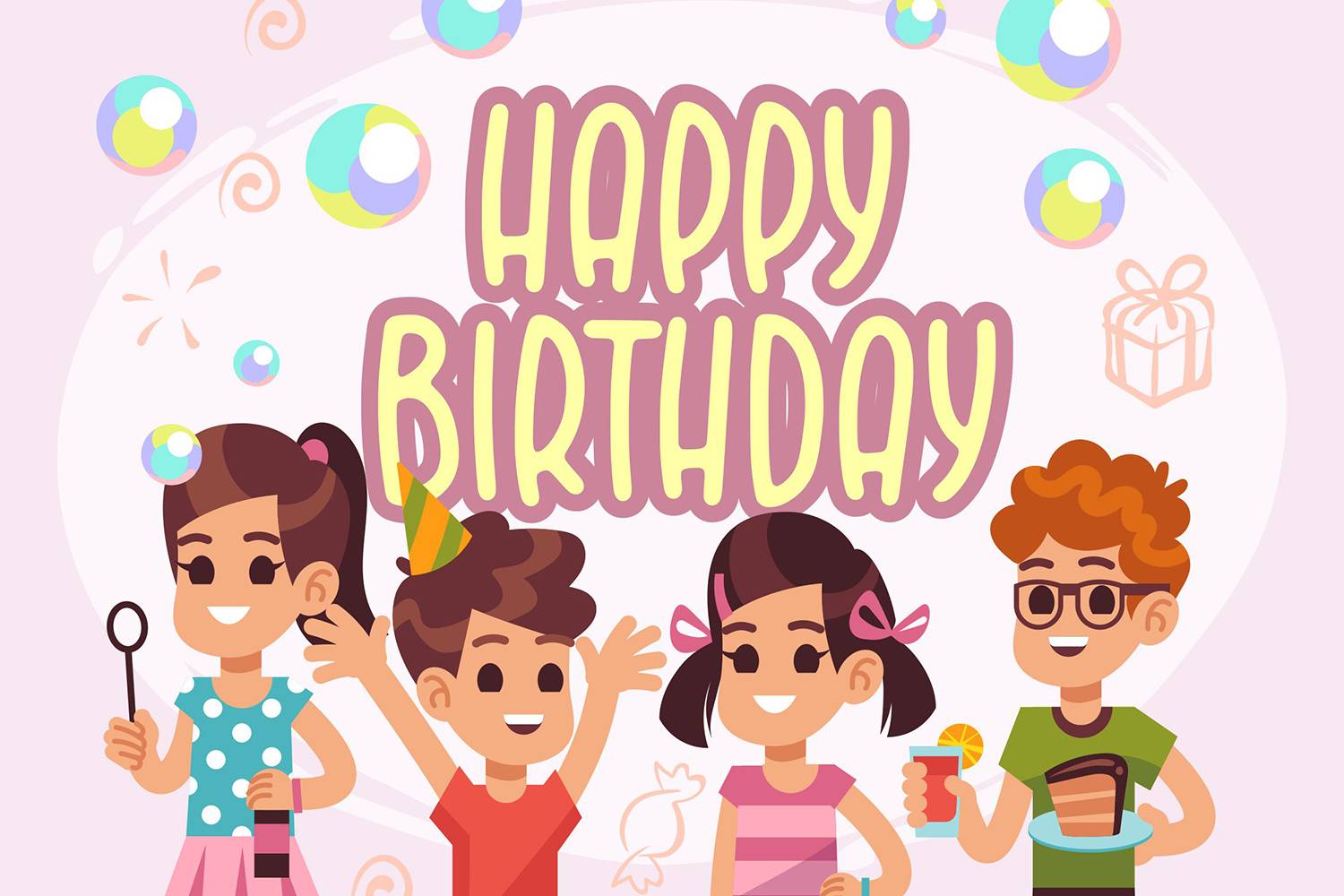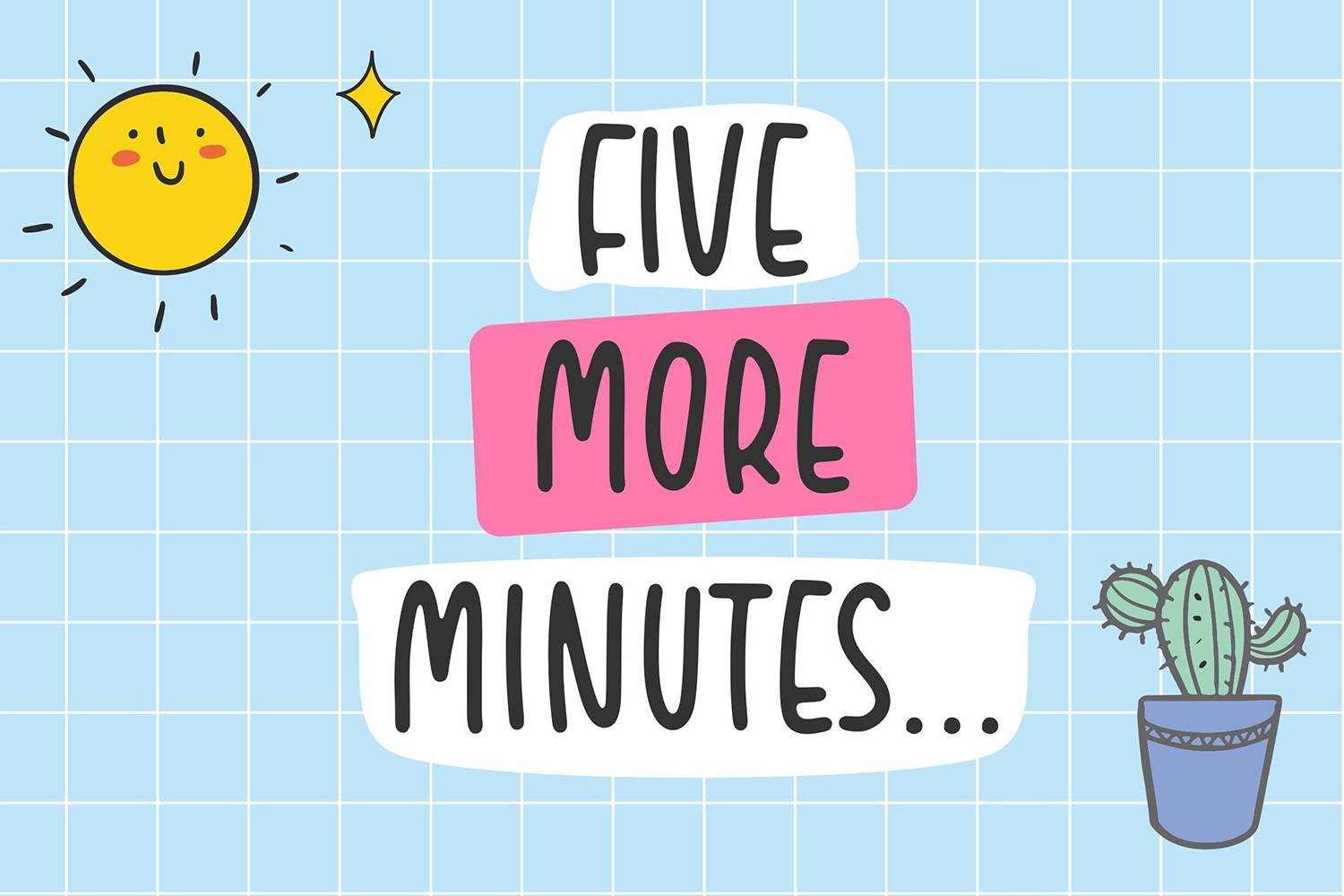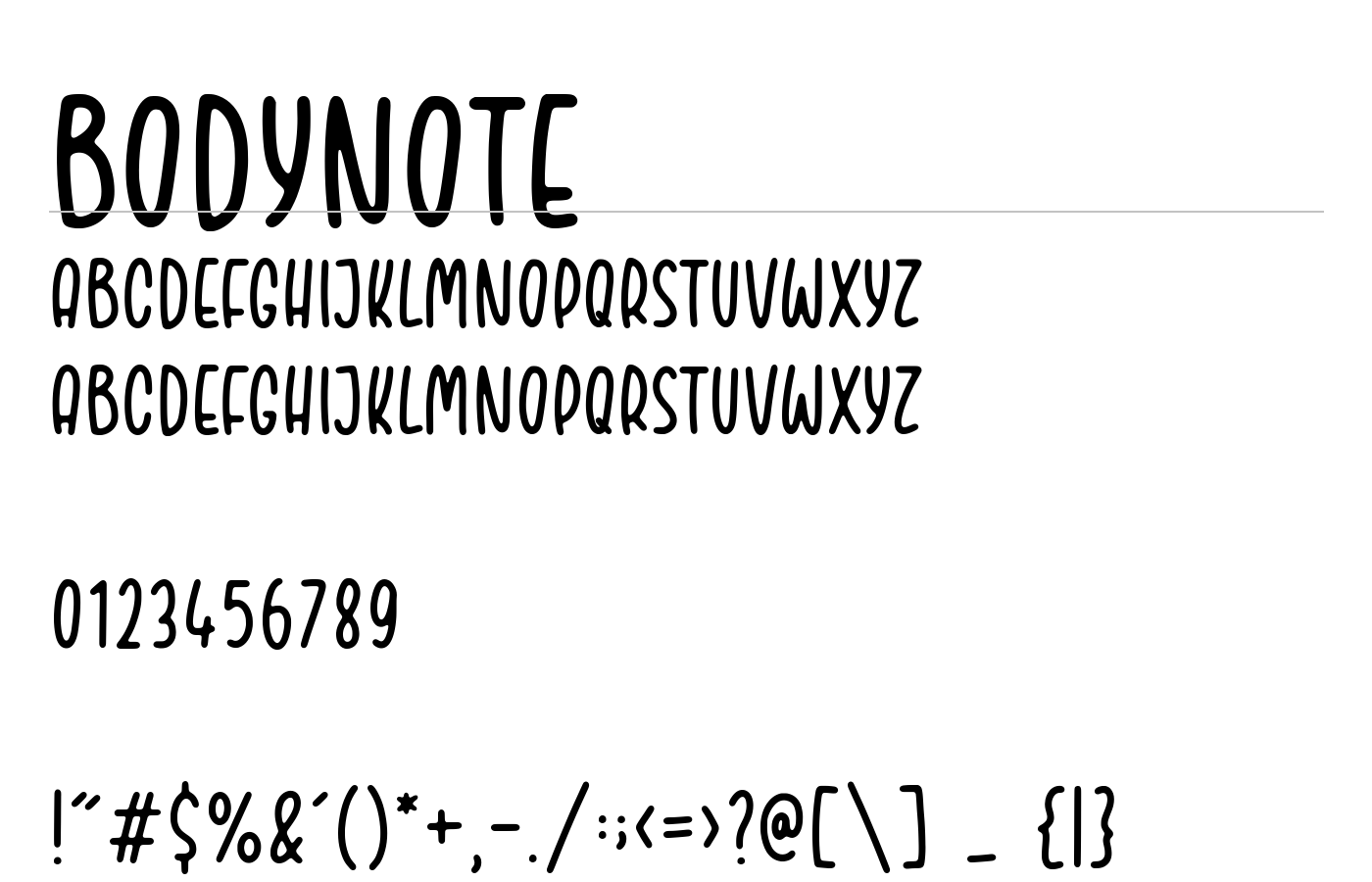
Bodynote is a playful and casual sans serif font with a hand-drawn feel, characterized by its tall, narrow letterforms and a slightly irregular, organic stroke. Its light weight and open spacing make it highly readable, lending a friendly and approachable personality perfect for informal branding, children’s books, or creative projects. This font works well in headlines and display contexts where a whimsical, personal touch is desired.
Bodynote Font
About Bodynote Font